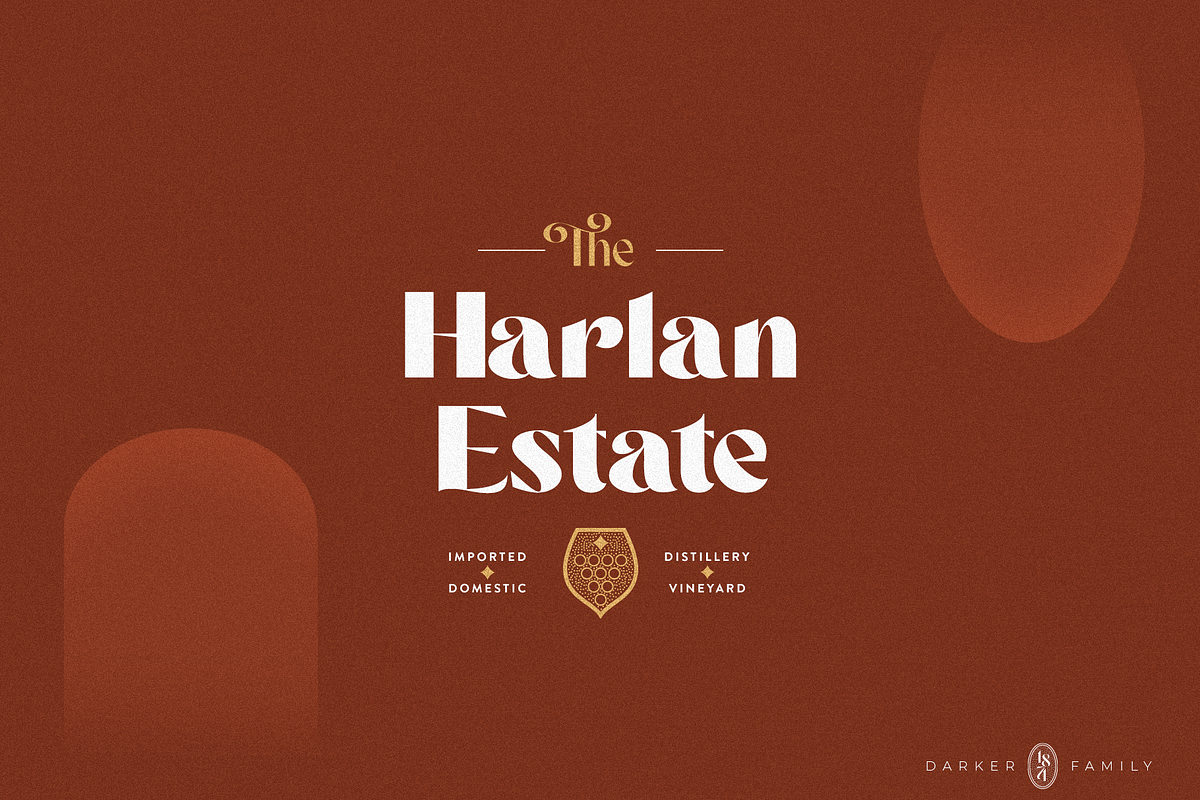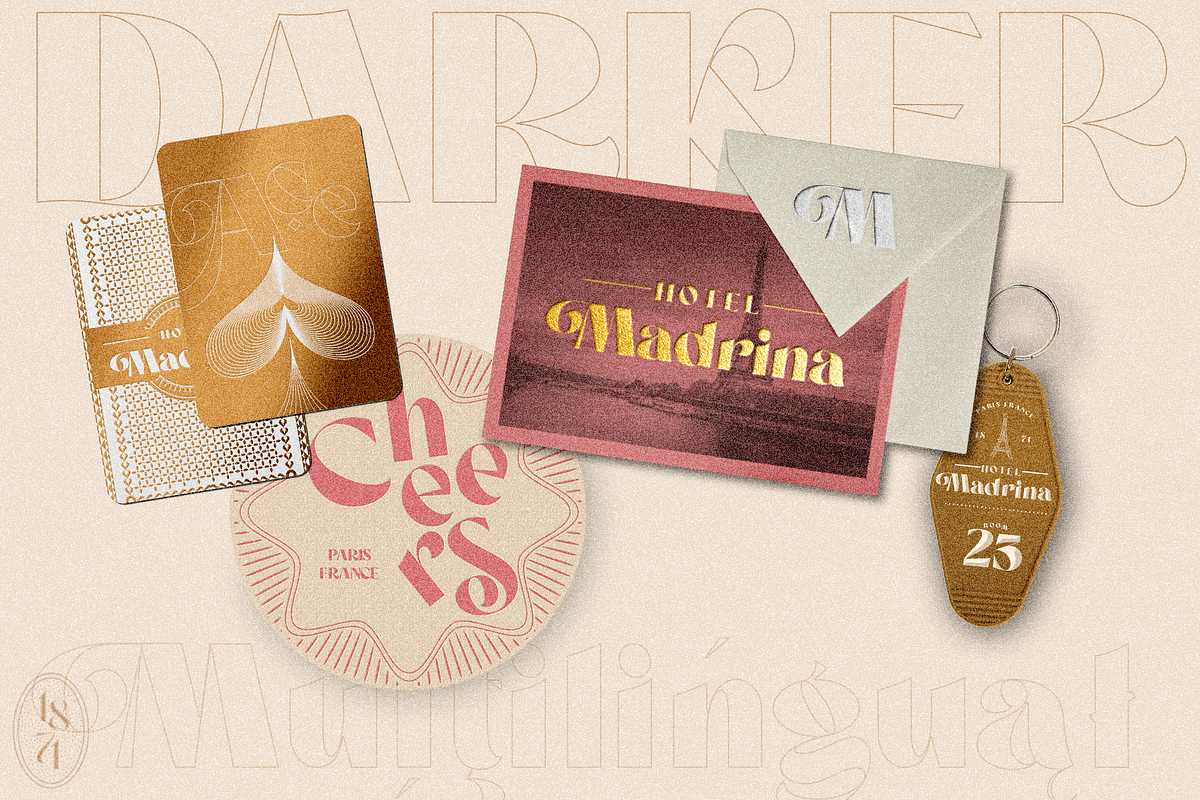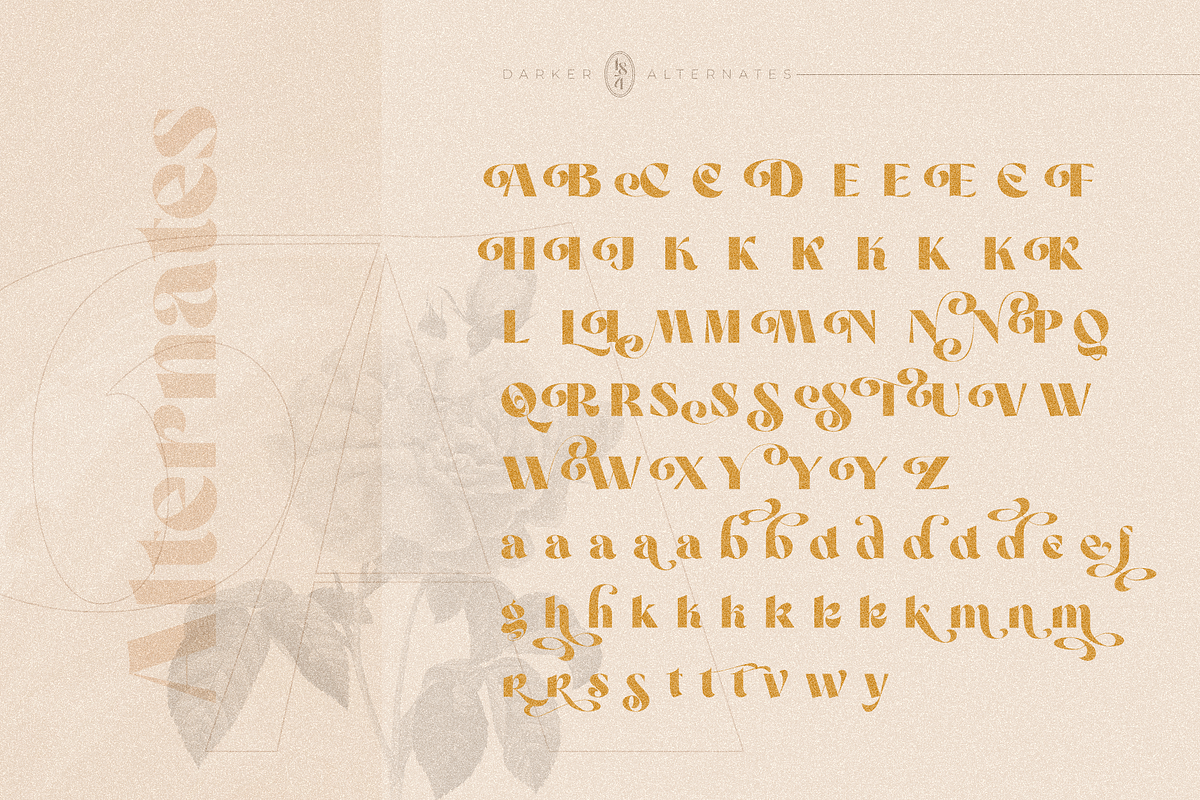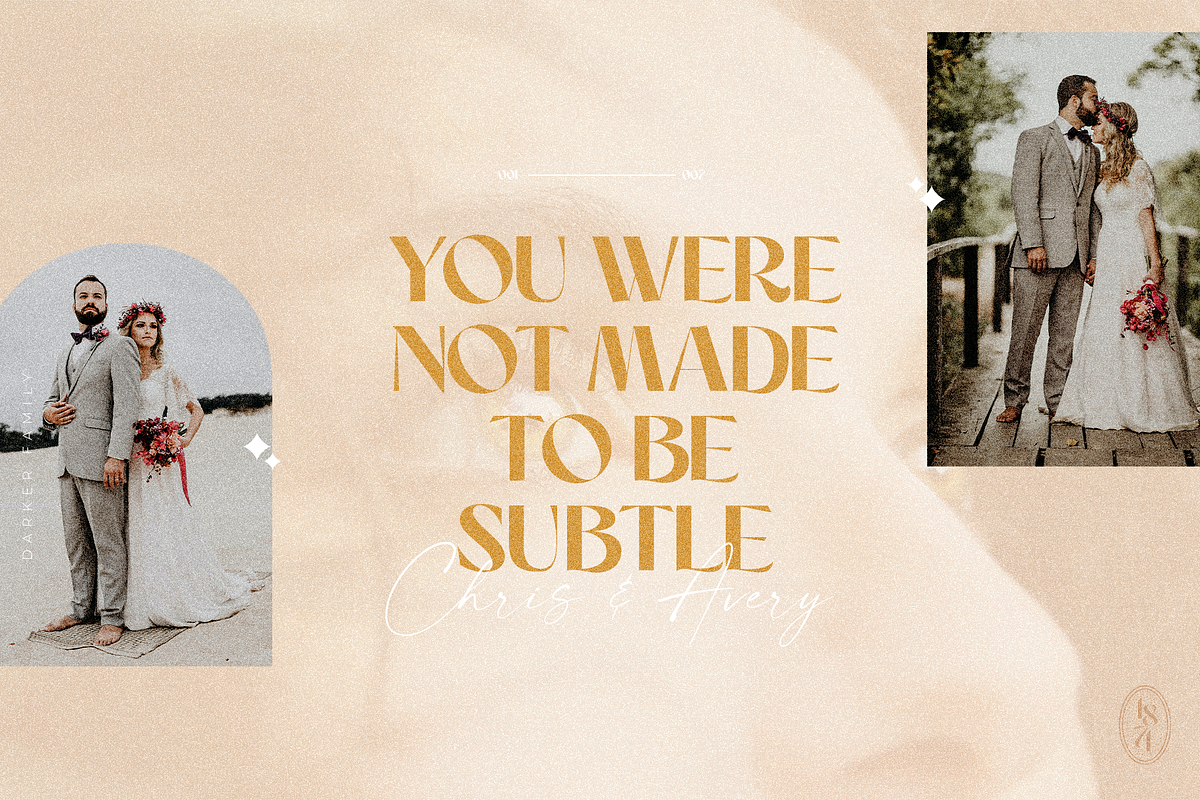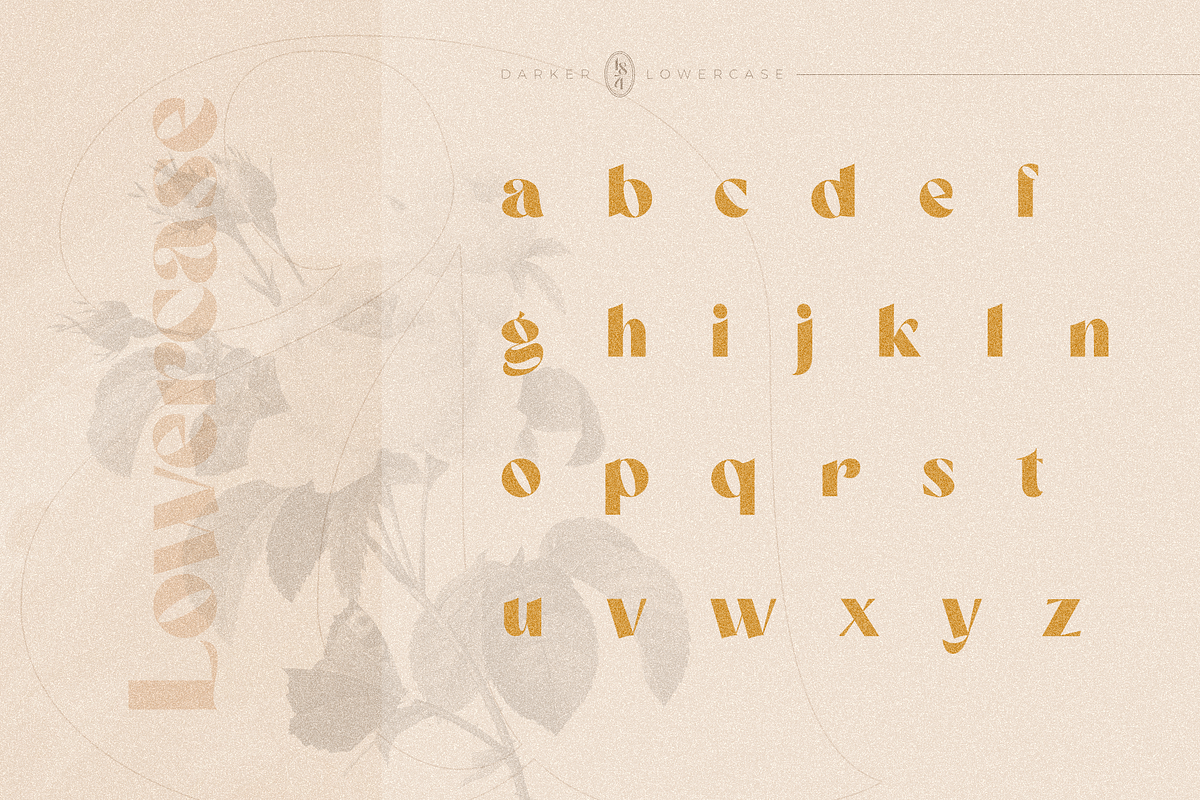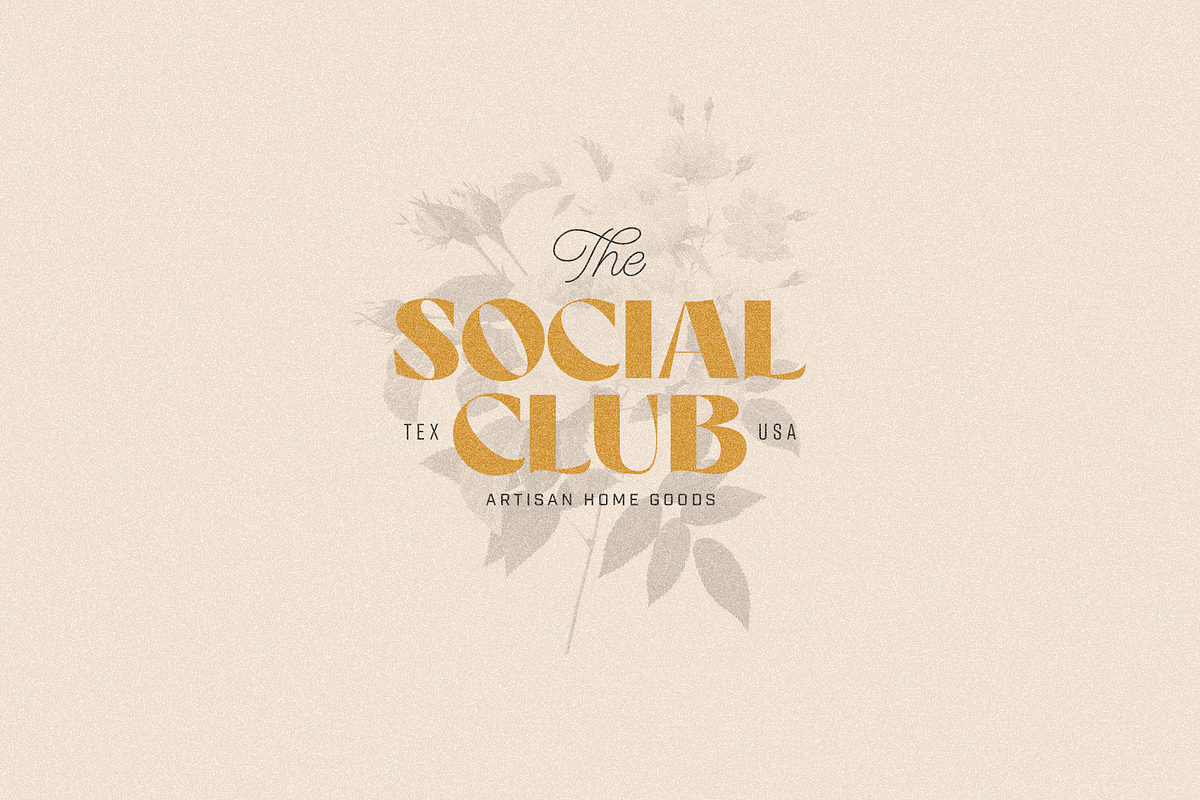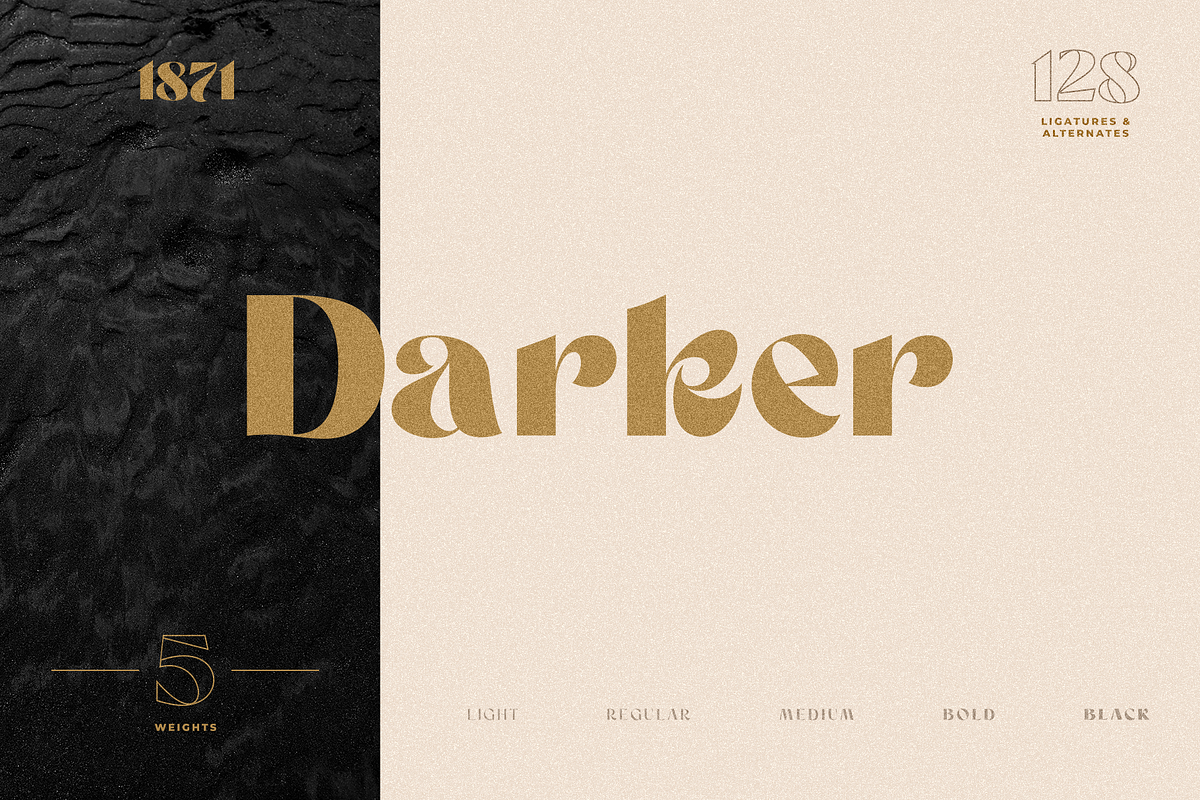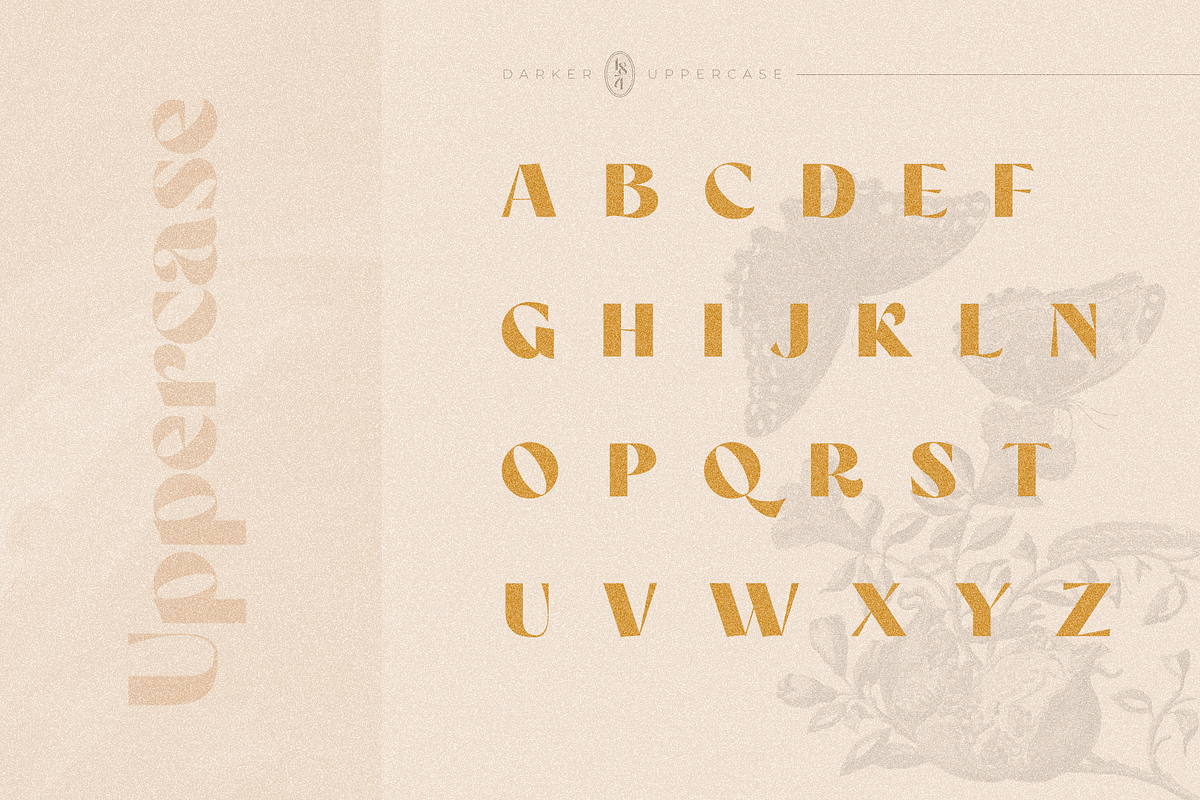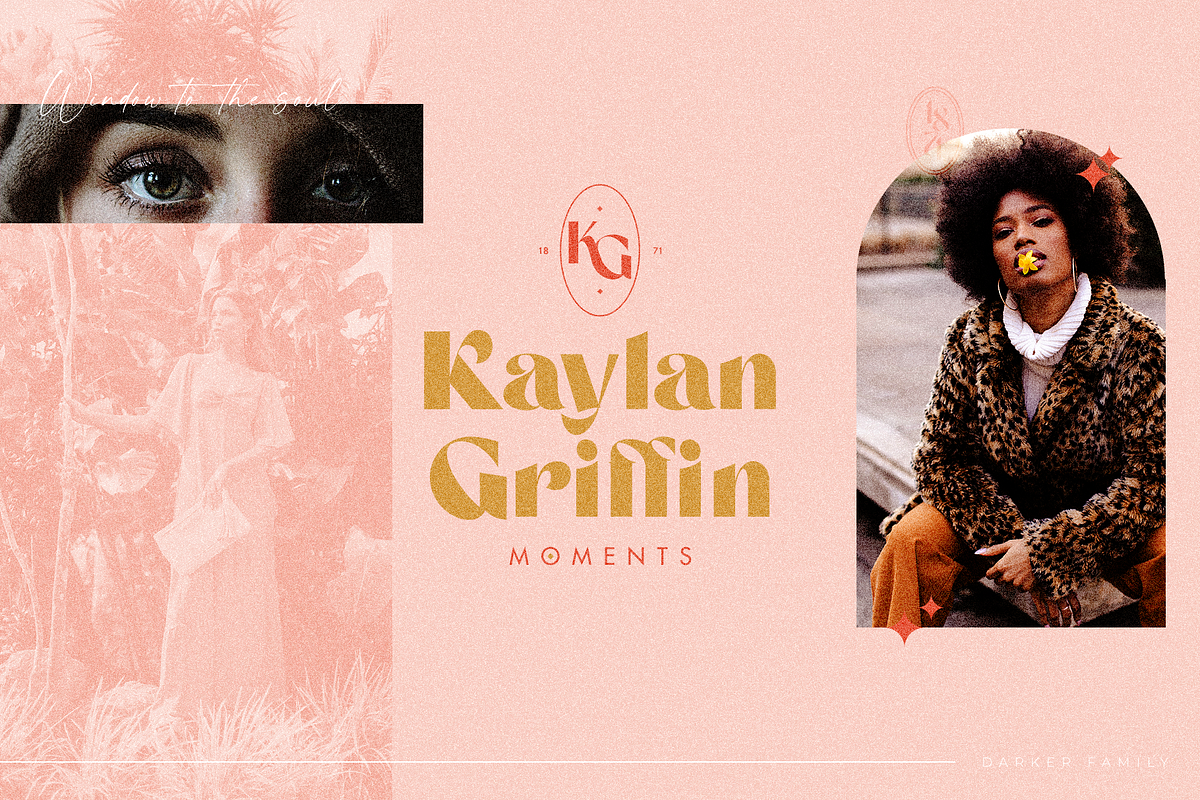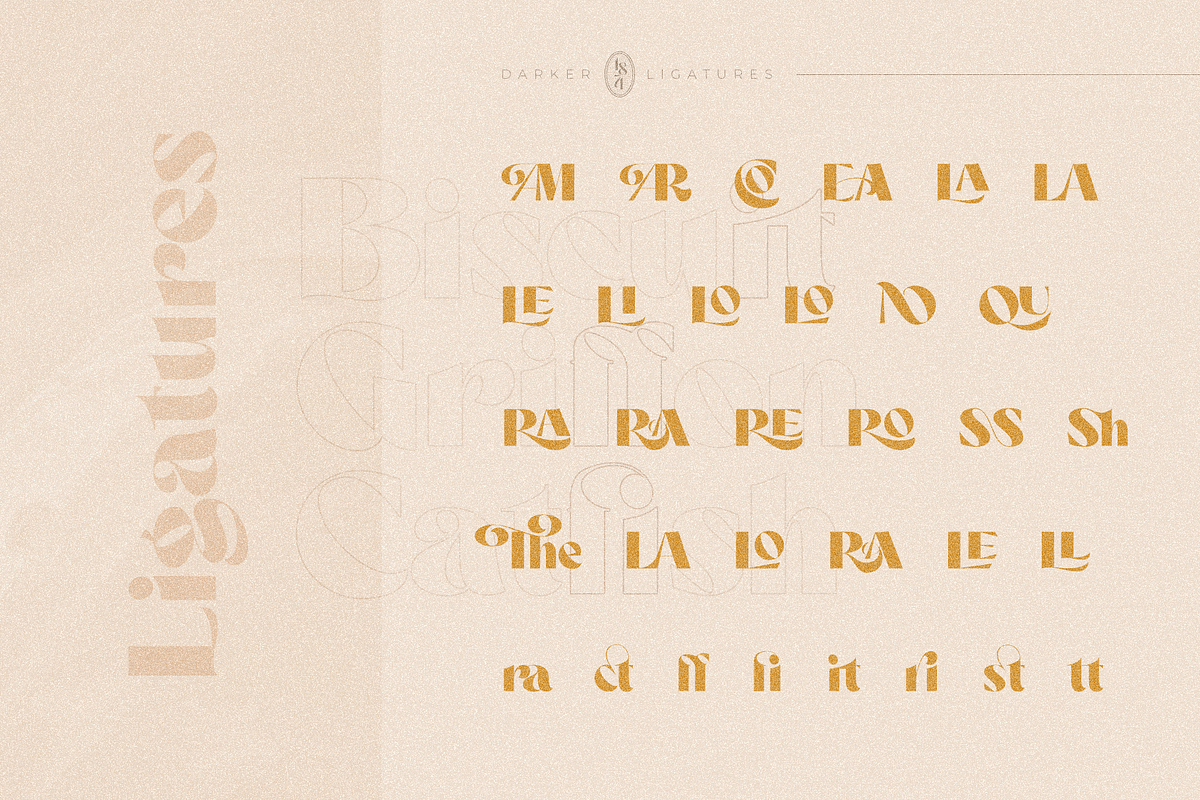
Darker Sans Serif + Extras
Introducing Darker Sans Serif + Extras our new bold minimal elegant modern vintage sans serif font! It features beautiful uppercase and lowercase ligatures, 5 weights, tons of special alternative glyphs, and a ton of extra custom The's! Darker is extremely versatile and will work great for branding projects, posters, magazine covers, or any project that calls for an elegant sans serif!
Are you always looking for the perfect script "The" to pair with your logo type? Darker comes with 14 different The's in stroke and object format so you can customize and edit the shapes for something completely unique!
- 5 Weights
- Lowercase and Uppercase
- Stylistic Alternates & Ligatures
- Beautiful curves and edges
- 14 Extra The's
- Multiple Languages Support